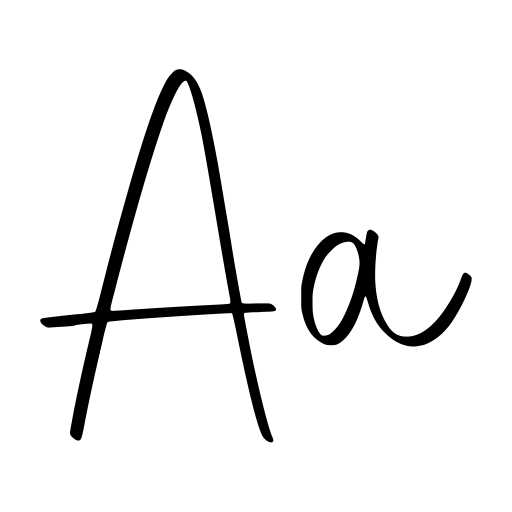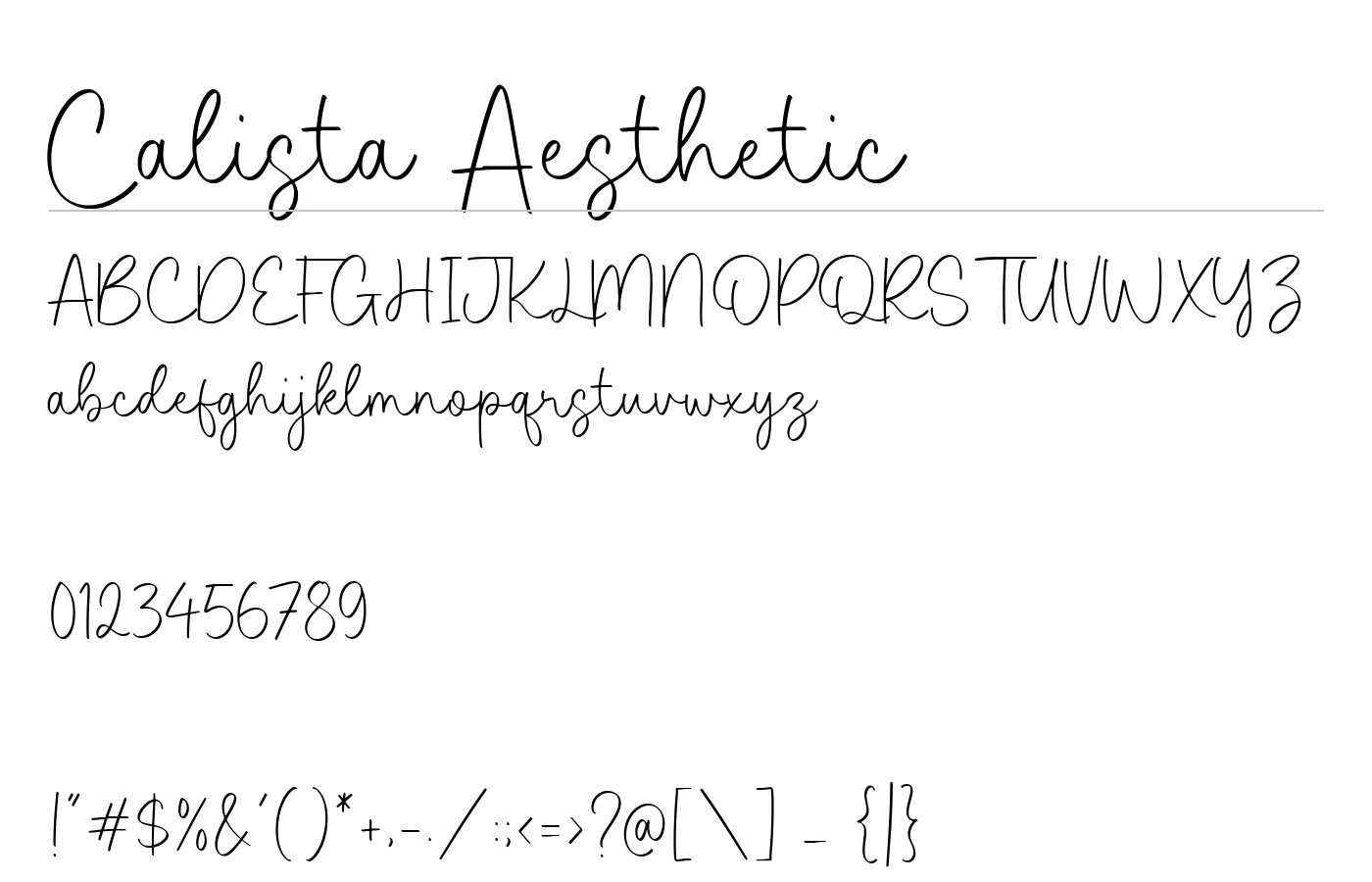
Calista Aesthetic is a delicate, handwritten script font with a light, airy feel created by its narrow, flowing letterforms and consistent thin strokes. Its clean, playful style exudes a casual elegance perfect for creative branding, invitations, and lifestyle-focused designs that want to convey warmth and personality. This versatile font works well in both headlines and short texts where a friendly, approachable tone is desired.
Calista Aesthetic Font
About Calista Aesthetic Font